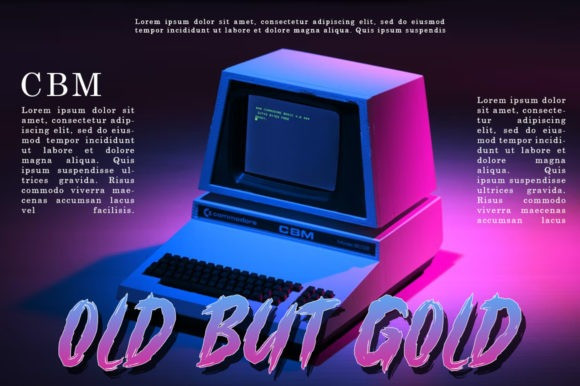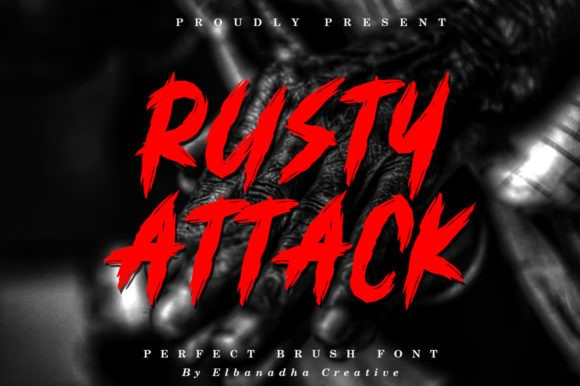
Rusty Attack Font
Rusty attack Display Font is a simple, modern, quirky, and adaptable display font. You can successfully add this unique font to playground designs, business cards, greetings cards, social media posts, wall art, and more.